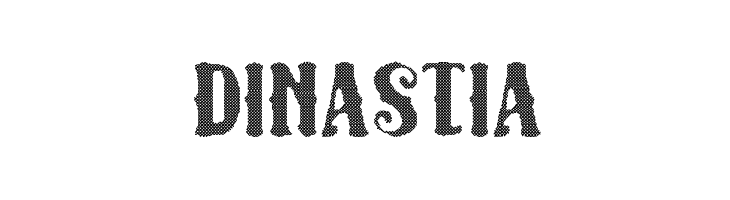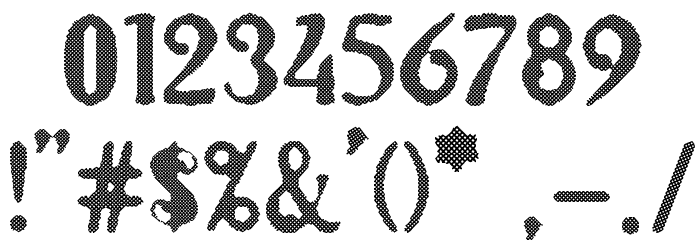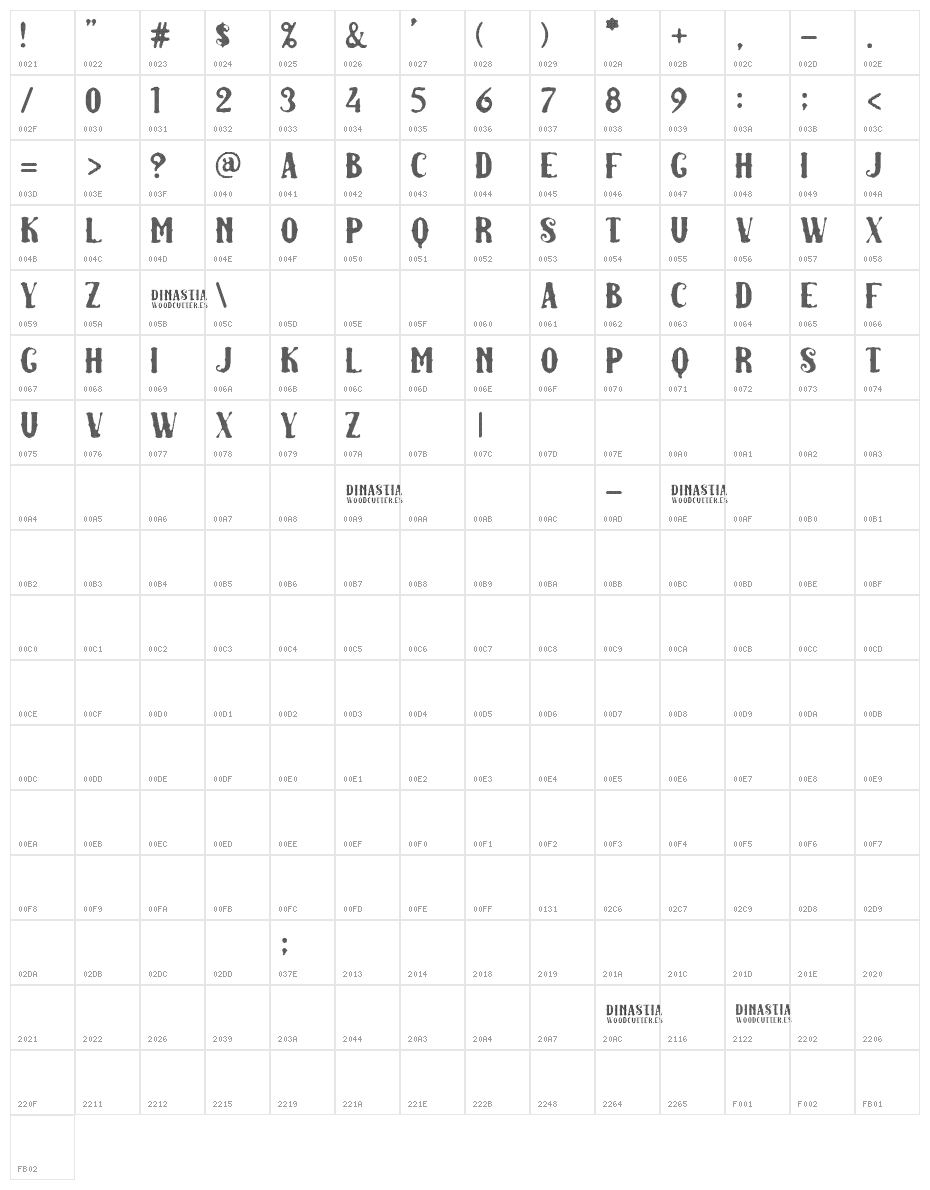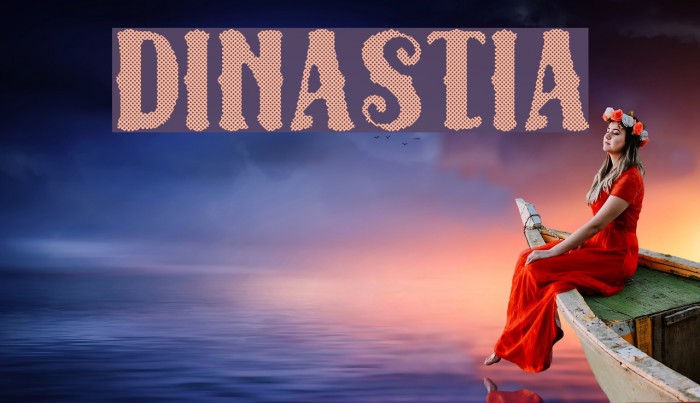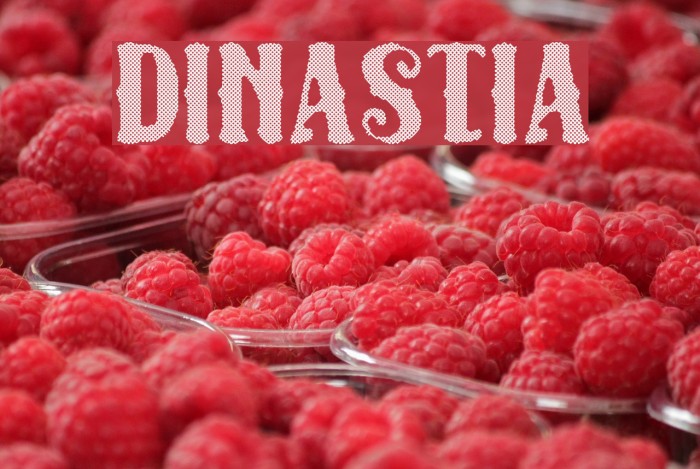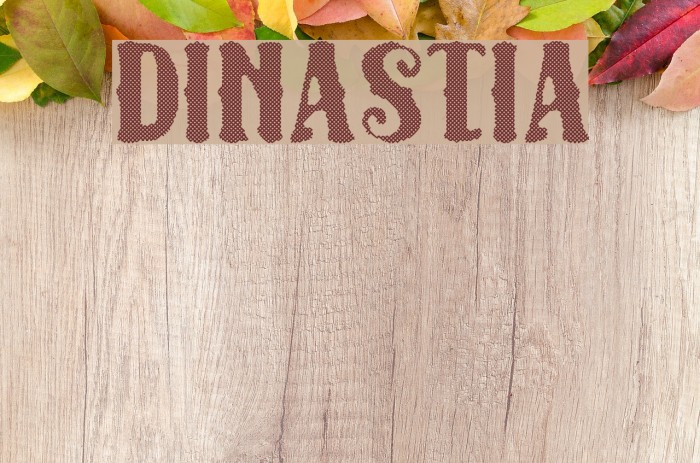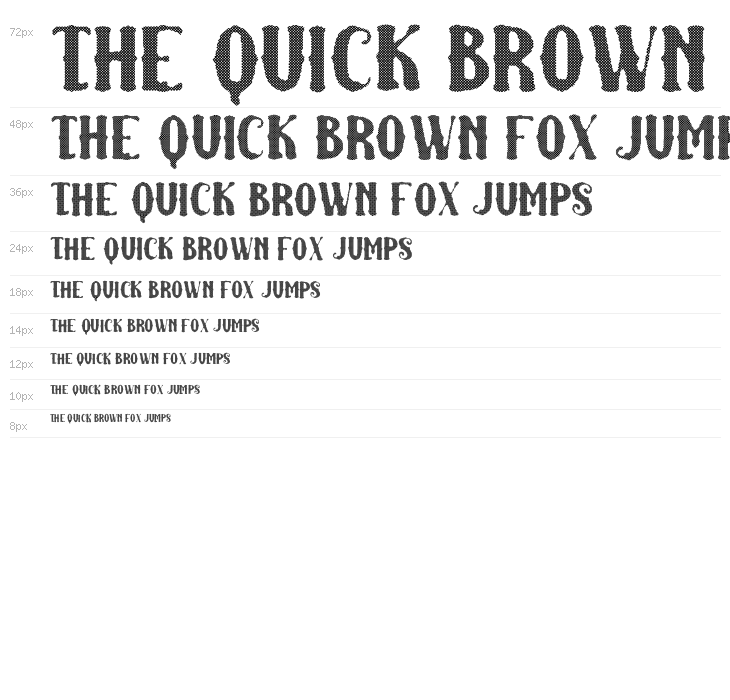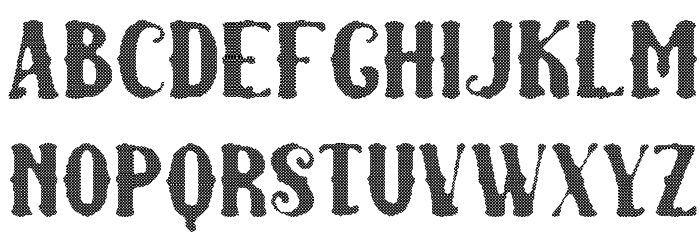
Dinastia Font
Dinastia Description
This font features a bold and decorative style with a vintage flair. The characters are heavily stylized, with unique curves and flourishes that give it a distinct personality. The uppercase letters are particularly ornate, with some characters featuring additional embellishments that enhance their visual appeal. The lowercase letters maintain a consistent style, complementing the uppercase set. Numbers and special characters are designed with the same attention to detail, ensuring a cohesive look across all glyphs. The overall design is reminiscent of classic poster or signage fonts, making it suitable for projects that require a touch of nostalgia or artistic flair.
| Proposed Projects | Ideal for vintage-themed posters, signage, branding, and artistic projects requiring a bold statement. |